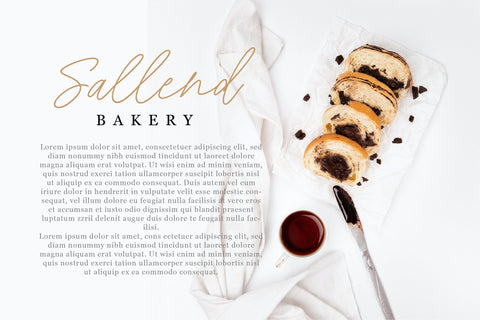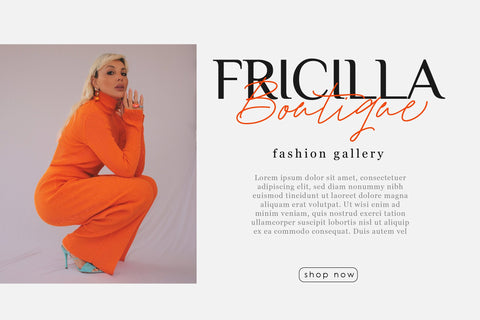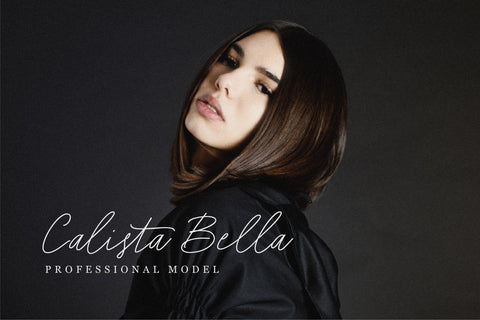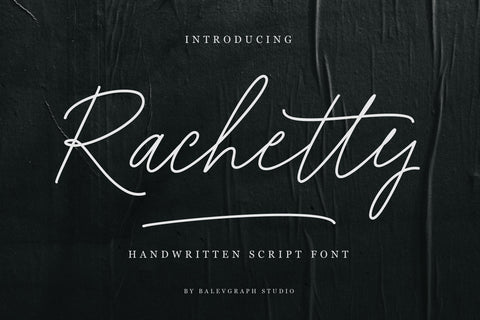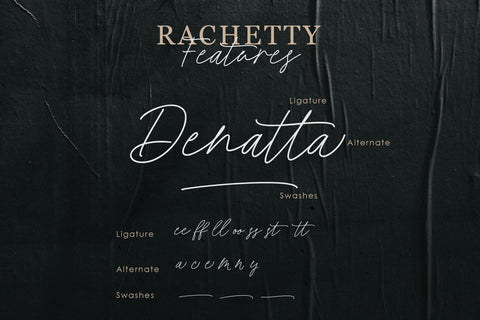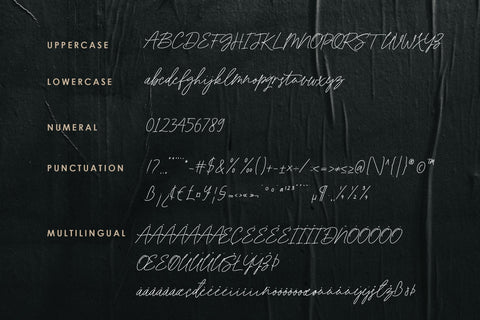
Rachetty Handwritten Script Font
Rachetty is a stylish and delicate script font. It has a clean, thin and smooth vibe and it will be a hit for any design that you want to add it to.
- Ligature, Alternate & Swashes
- Multilingual support